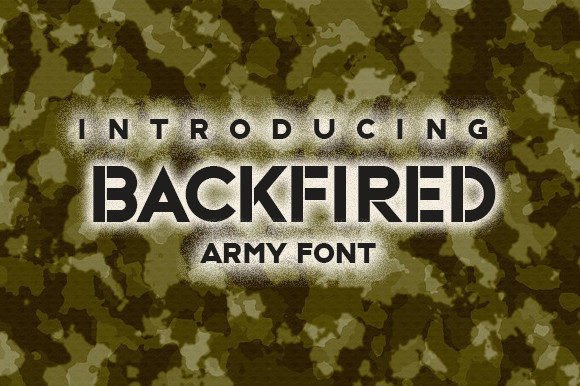
Behold, the Backfired Font, a typeface that electrifies your designs with its daring and assertive personality. Step into a world of captivating visuals, where your words dance with elegance and authority. Backfired is not just a font; it's a statement, an expression of your unique style that demands attention.
With its clean and modern sans serif strokes, Backfired is the perfect choice for those who crave impact and distinction. Its sharp angles and confident curves exude a sense of sophistication and energy, making it an ideal font for posters, flyers, and t-shirts. Imagine your designs adorned with Backfired, radiating vibrancy and commanding attention wherever they go.
Crafted by the visionary designer vladimirnikolic, Backfired is a masterpiece of digital typography. Its carefully balanced letterforms and meticulously placed accents ensure that your message is conveyed with clarity and impact. Whether you're creating academic posters, marketing materials, or branding designs, Backfired will elevate your work to new heights of visual excellence.
Dive into the world of Backfired and let your creativity soar. Unleash the power of this font to create designs that resonate with your audience, leaving a lasting impression. Embrace the energy and authenticity of Backfired, and watch your designs transform into captivating masterpieces.